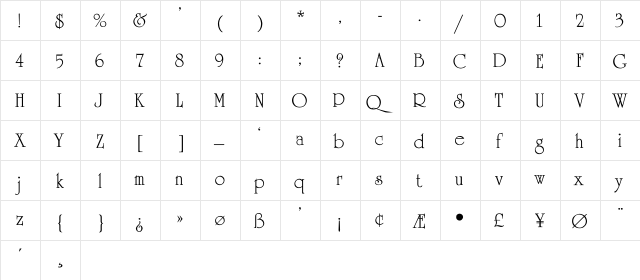
Uniroman Regular
Design Context for Uniroman Typeface
Uniroman offers clean, dependable letterforms without strong stylistic allegiance, making it a practical choice for designers who need flexibility.
Pro Tip: Pair Uniroman with a font of contrasting weight or personality to build a more expressive typographic hierarchy.